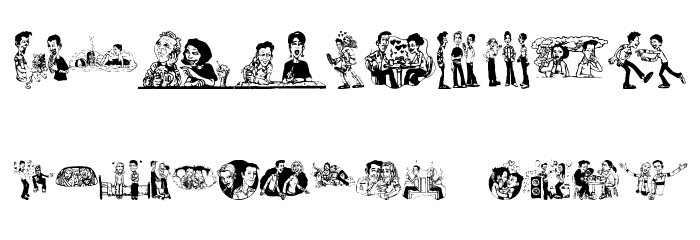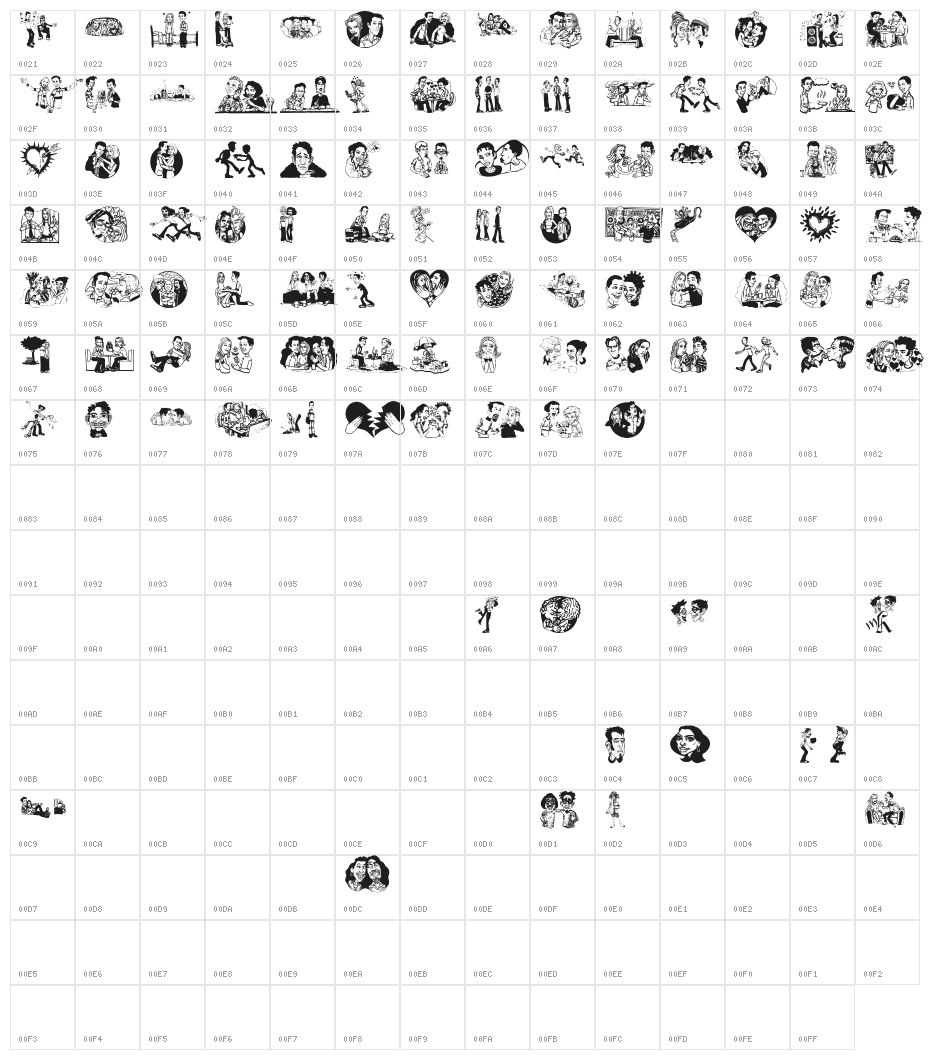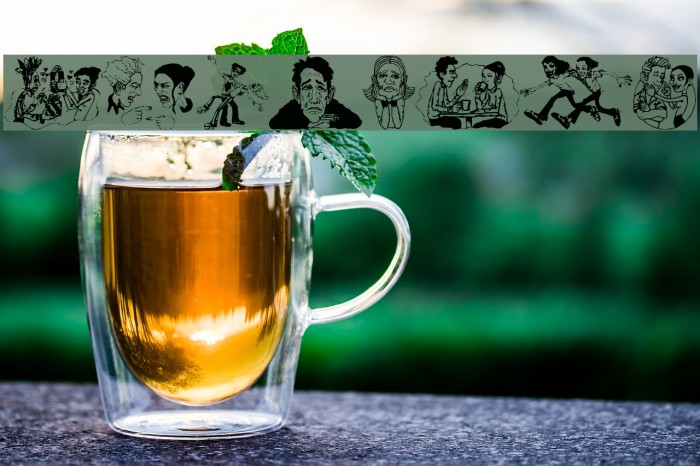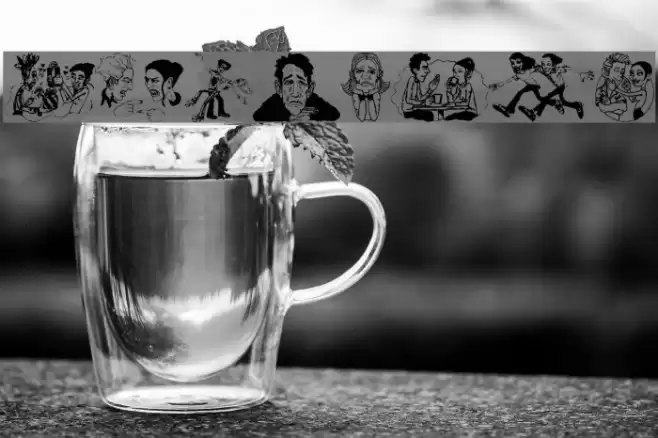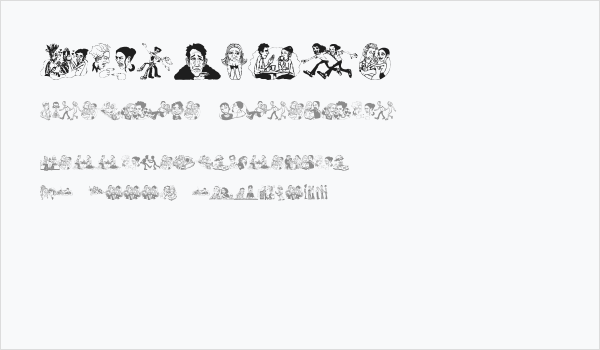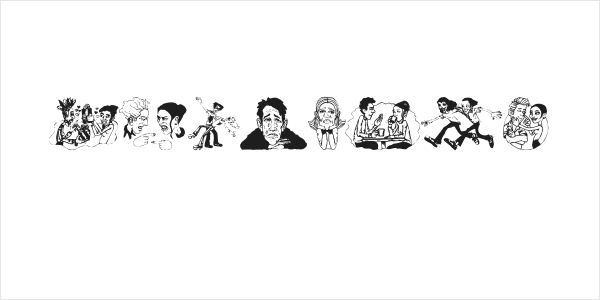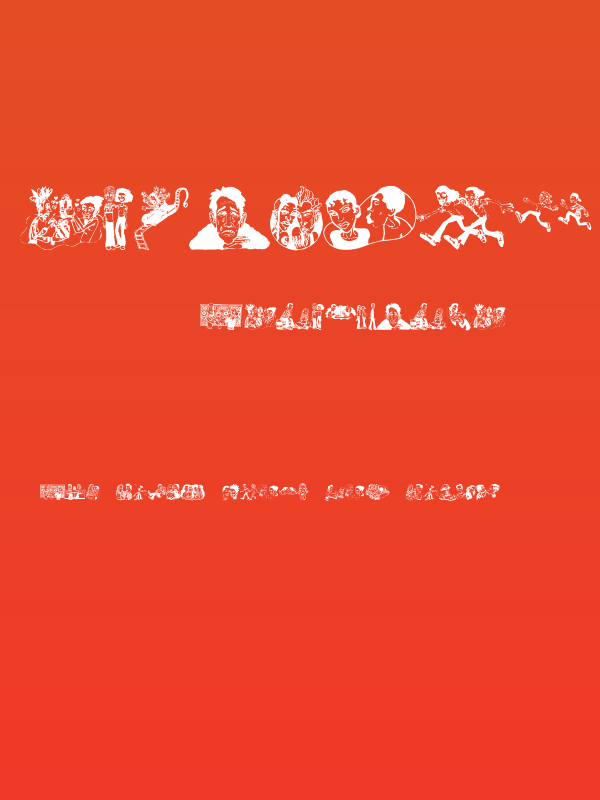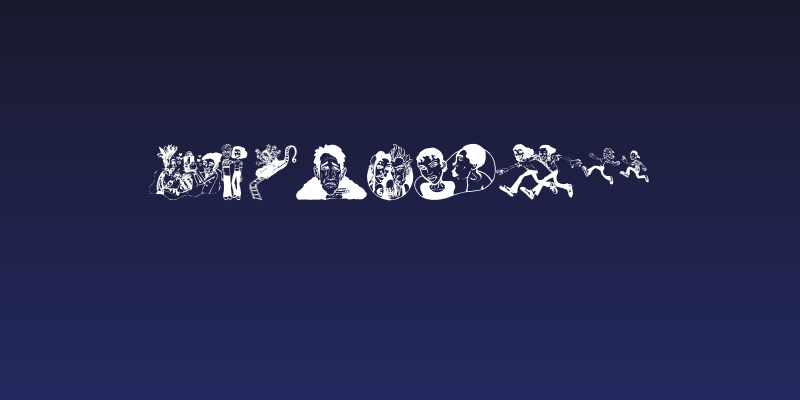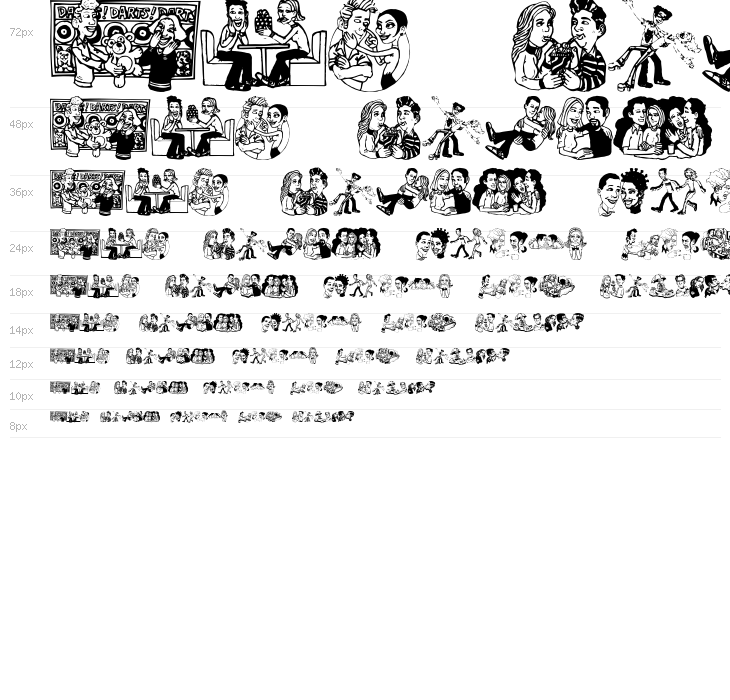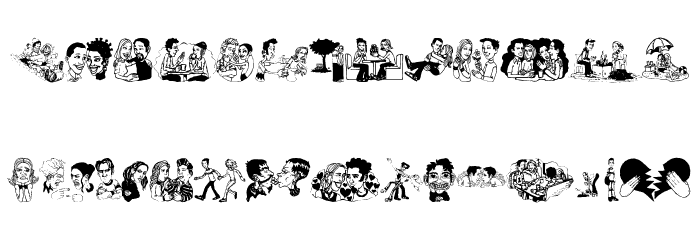
YouAndMe Font
YouAndMe Description
A highly decorative and illustrative font where each character is represented by a detailed cartoon scene or caricature, often depicting pairs or groups of people in various social or emotional situations. The glyphs are complex, with high visual detail and strong narrative elements, making each letter unique and expressive.
| Overall Style | Decorative, Playful, Narrative |
| Use Case | Logos, Headlines, Posters, Themed Graphics |
| Proposed Projects | Greeting cards, posters, event invitations, editorial illustrations, childrenΓ’β¬β’s books, themed branding. |